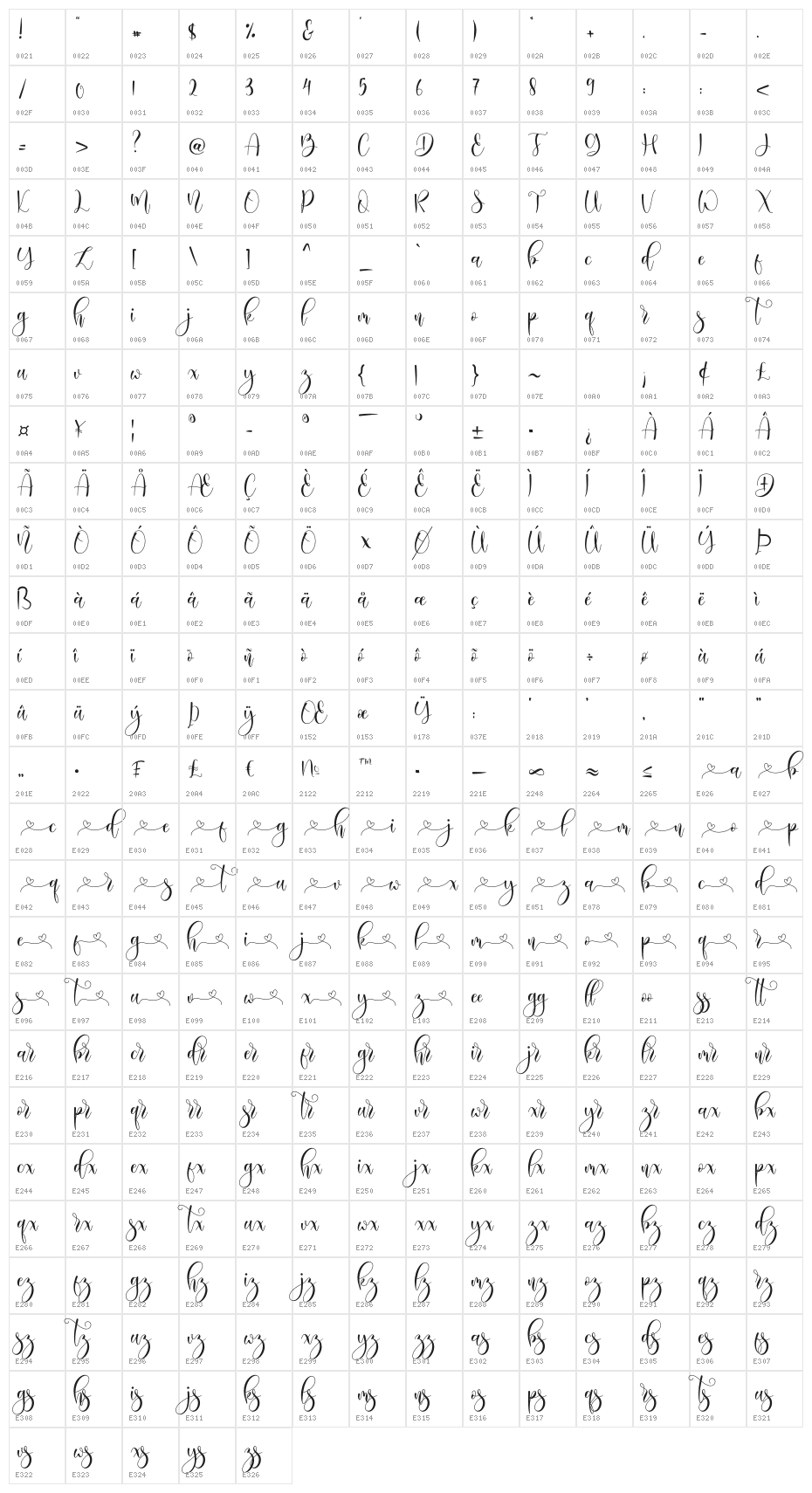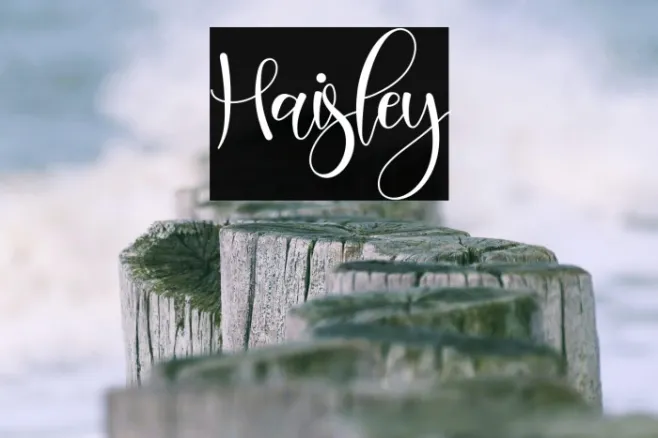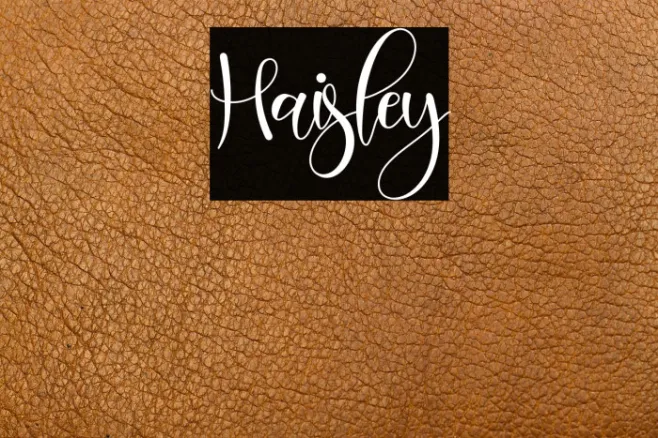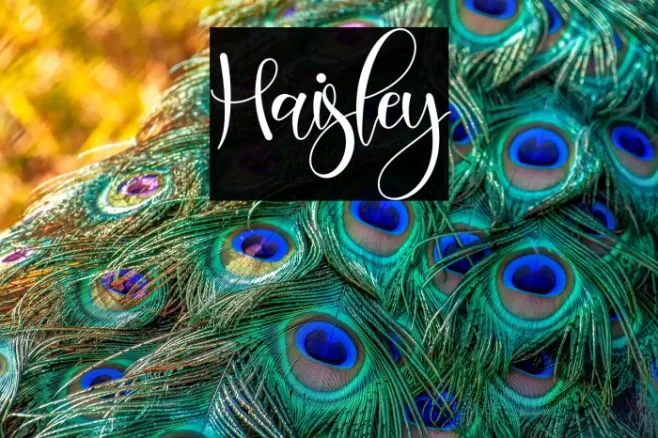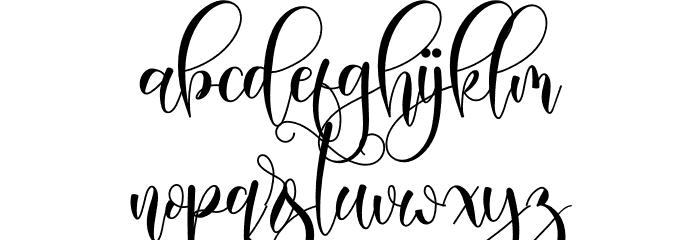
Haisley Font
Haisley Description
This font exhibits a flowing, cursive style with elegant loops and swashes, creating a sense of movement and grace. The uppercase letters are particularly ornate, featuring intricate flourishes that extend beyond the baseline and cap height. The lowercase letters maintain a consistent style, with some characters, like 'g' and 'y', having long, sweeping descenders. The numerals are distinct yet harmonize well with the overall script style. Special characters are designed with the same attention to detail, ensuring they blend seamlessly with the alphabet. This font's artistic flair makes it suitable for decorative purposes, adding a touch of sophistication and charm to any project.
| Use Case | Headlines, Invitations, Branding |
| Proposed Projects | Ideal for wedding invitations, greeting cards, branding, and decorative headlines. |